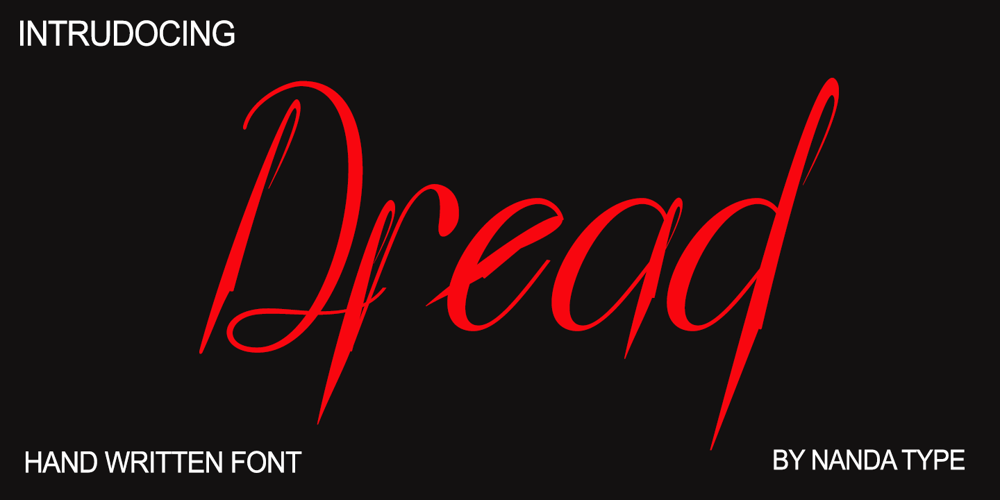
Dread
Dread font
Dread Font Family was designed by Nanda Type and published by Nandatype Studio. Dread contains 1 styles and family package options. Dread Script is a connecting script with a dancing baseline, which is designed to convey scareness and style. This font works perfectly for logos, magazines, menus, books for children, invitations, wedding / greeting cards, packaging, labels, t-shirt etc. All designs will have a wonderful handmade touch. It offers a variety of features such as ligatures, swashes, endings, and many early forms alternately. To unleash your creativity, this font also supports multiple languages.